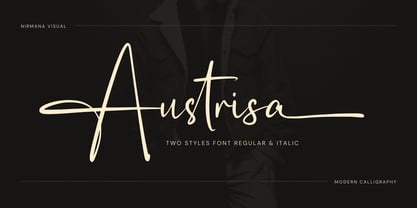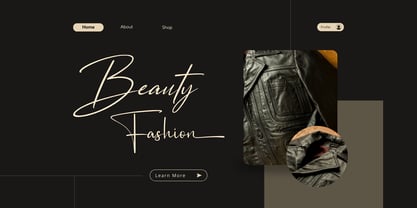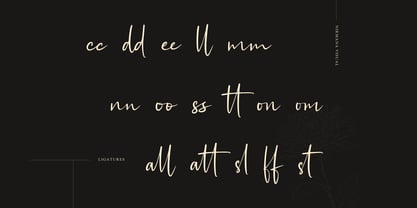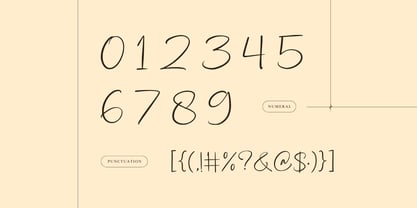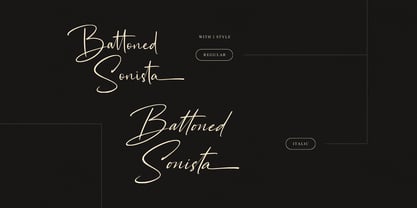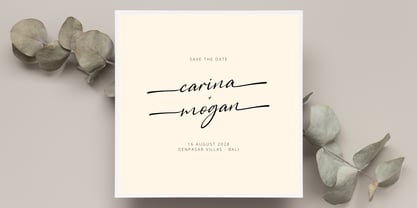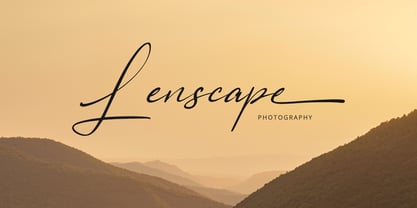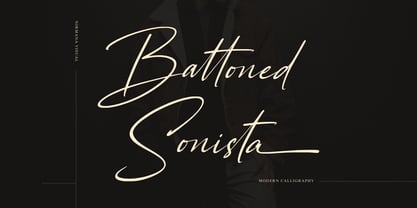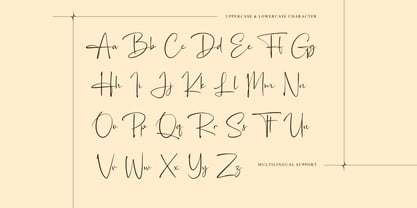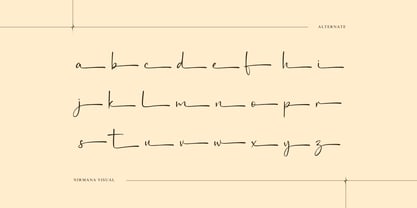
Austrisa
Die Schriftfamilie Austrisa wurde von Sigit Dwipa entworfen und von Nirmana Visual veröffentlicht. Austrisa enthält 2 Stile und Familienpaketoptionen.
Austrisa is a modern calligraphy font with elegant, flowing strokes, perfect for weddings and luxury branding. Available in Regular and Italic, it features special alternate swashes in lowercase, adding a graceful and artistic touch. Its smooth curves and refined details make it ideal for invitations, logos, and sophisticated designs. With a balance of beauty and readability, Austrisa brings a timeless charm to any project, enhancing elegance and style effortlessly.